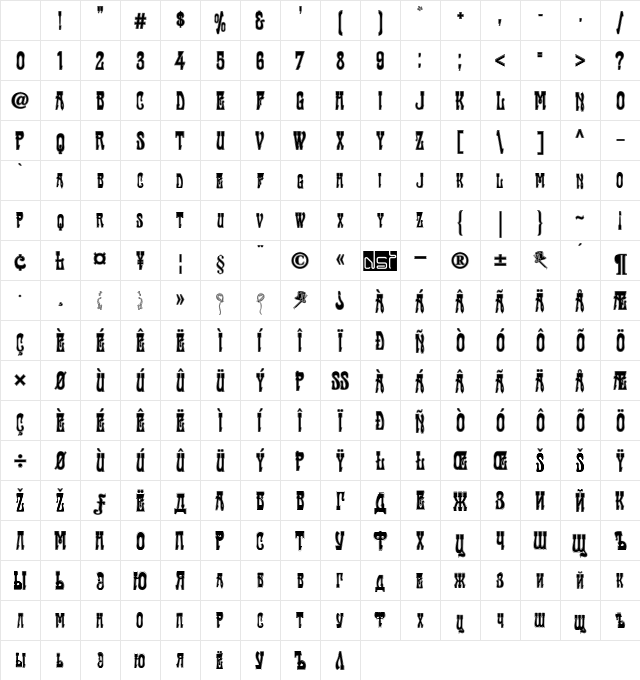
Complete Traktir-Modern Contour Regular glyph index. Displaying only characters natively supported by Traktir-Modern Contour Regular font.
Traktir-Modern Contour is a composed and adaptable typeface that performs quietly and consistently across a wide range of design contexts.